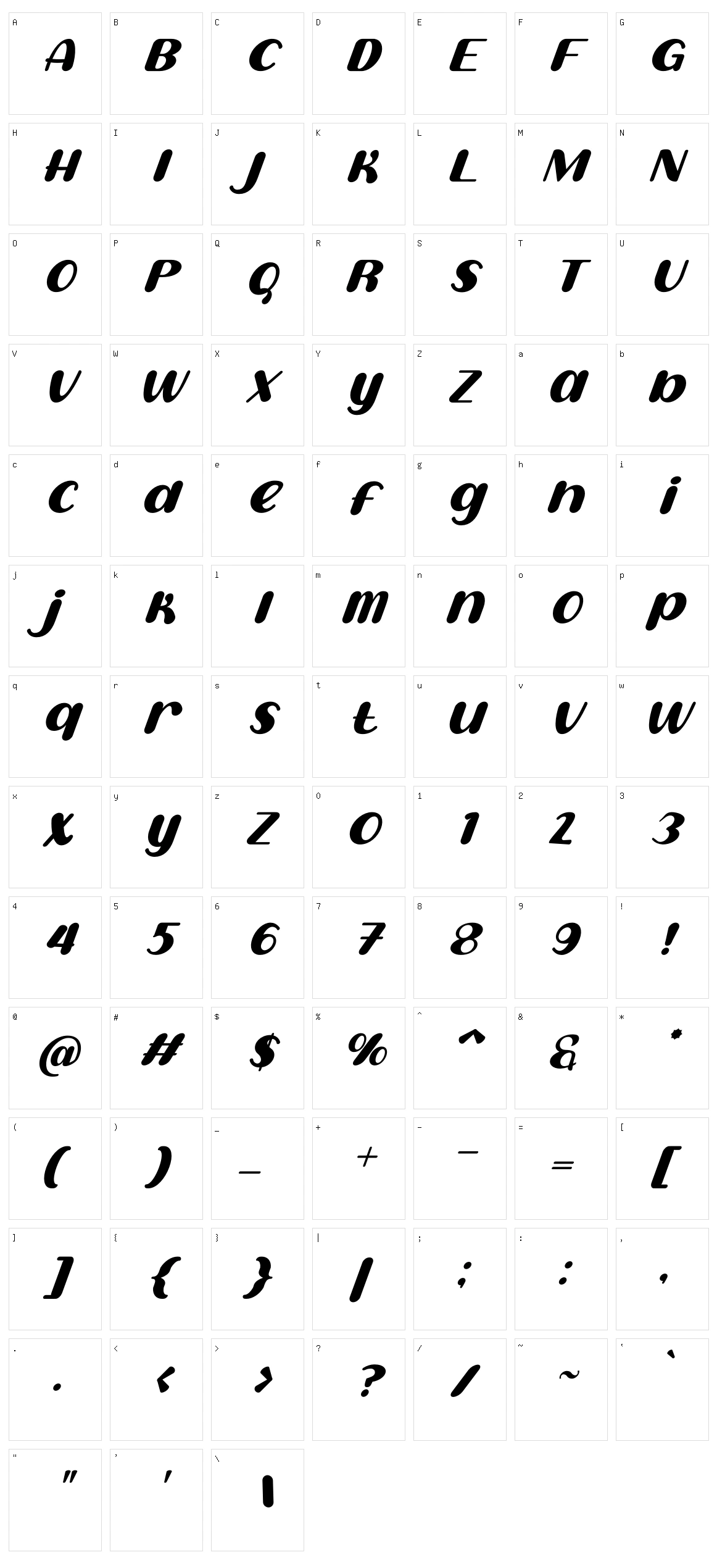
The free font Sweet Creamy is carefully designed by Display Studio, showcasing a thoughtful balance of creativity and usability and falls under the Cartoon font style. When you download the ZIP file, it contains only 145.22 KB of font files, making it lightweight and quick to download. Please review the license details below to understand permitted usage and distribution rights. If license information is not available, we recommend using this font for personal projects only or contacting the author directly for commercial usage permissions.